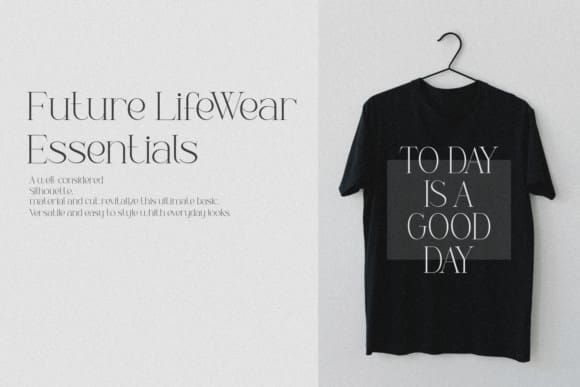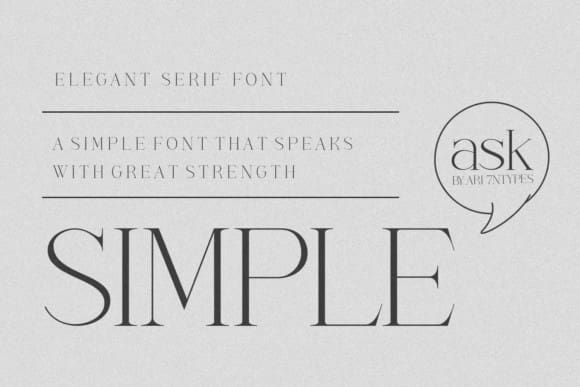
Simple Ask Font
Simple Ask Font is a classy and refined serif font that looks clean and stylish. Its elegant design makes it perfect for formal text, invitations, and sophisticated branding. The font’s clear lines and traditional feel add a touch of sophistication to any project.